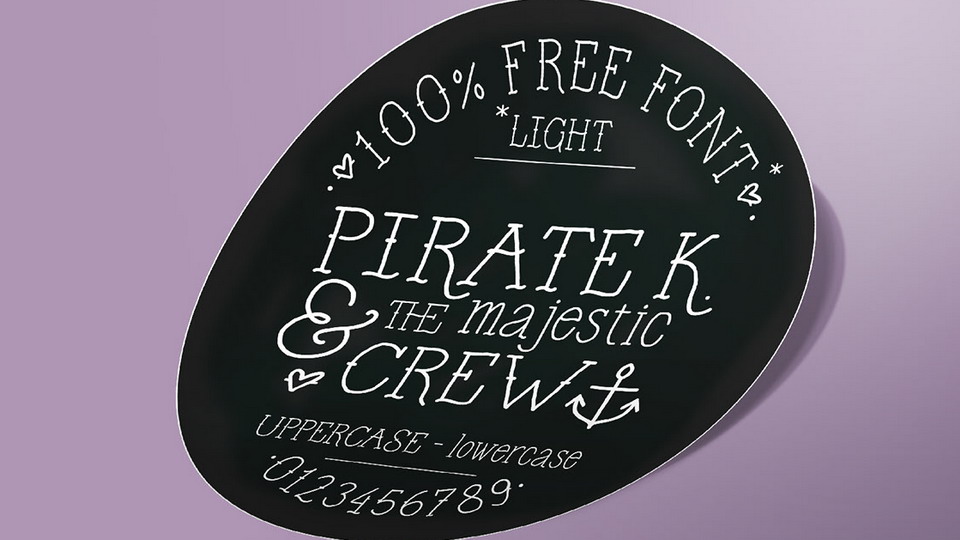
Download Pirate K. font is a hand lettered sailor’s tattoo style typeface. Pirate K. font is perfect for vintage design projects, t-shirt prints, labels, badges and more.